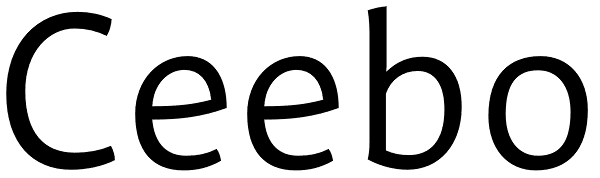
Ceebo
Ceebo is a friendly sans-serif, which show some aspects of a humanist and grotesque typeface. It retained more details of writing and got some forms and characteristics of an italic. The font contains some alternative glyphs. It also contains some...